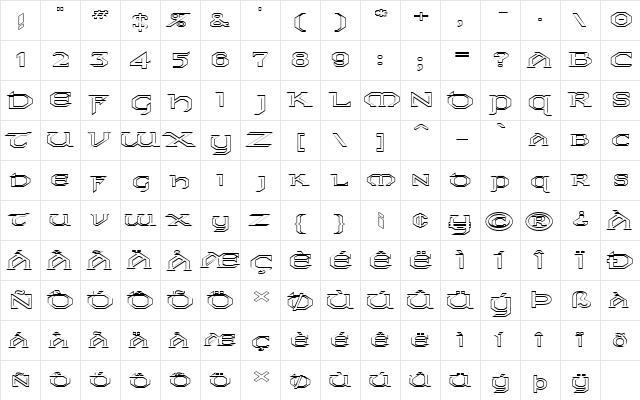
FZ JAZZY 31 HOLLOW EX Normal Font Preview
FZ JAZZY 31 HOLLOW EX Normal
Design Context for FZ JAZZY 31 HOLLOW EX Typeface
FZ JAZZY 31 HOLLOW EX is a composed and adaptable typeface that performs quietly and consistently across a wide range of design contexts.